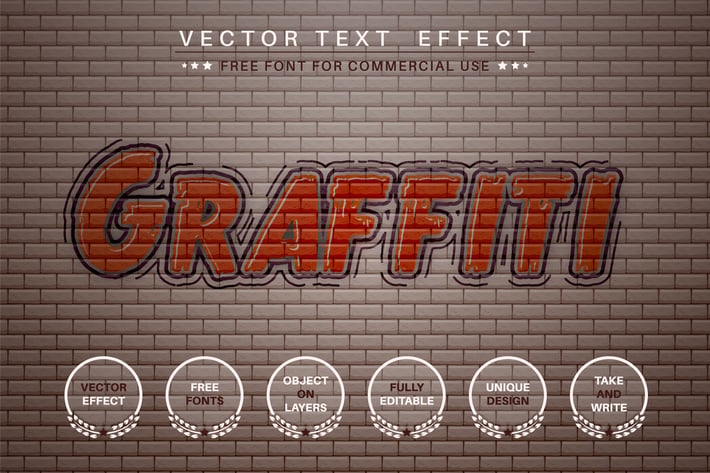
Graffity - editable text effect, font style
Hello! I'm happy to introduce my new text effect "Graffity". Just write your word and the effect will apply! Be as creative as you like to be in expressing yourself using this unique “Graffity”. Effect is perfect for any project that needs a unique handy touch whatever else your imagination leads you to!